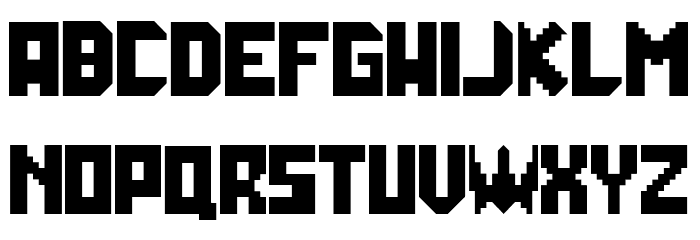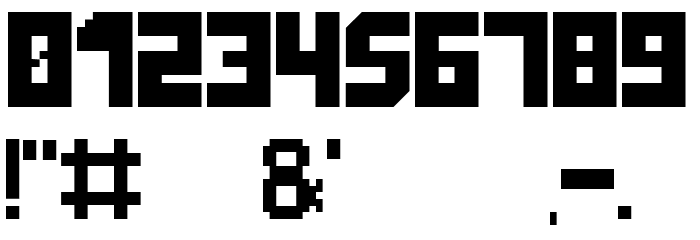
GalacticaGrid Font
This font features a bold, geometric design with a pixelated, block-like appearance. Each character is constructed with sharp, angular edges and uniform stroke widths, creating a cohesive and striking visual impact. The uppercase and lowercase letters maintain a consistent style, emphasizing a futuristic and digital aesthetic. The numerals and special characters are designed to match the overall theme, making them suitable for digital and tech-related projects. The font's distinct style is reminiscent of retro video games and digital displays, offering a nostalgic yet modern appeal.
A bold, geometric font with a pixelated, digital aesthetic.
- Proposed Projects: Ideal for video game design, tech branding, digital art projects, and retro-themed graphics.
- Use Case: Headlines, Logos, Digital displays